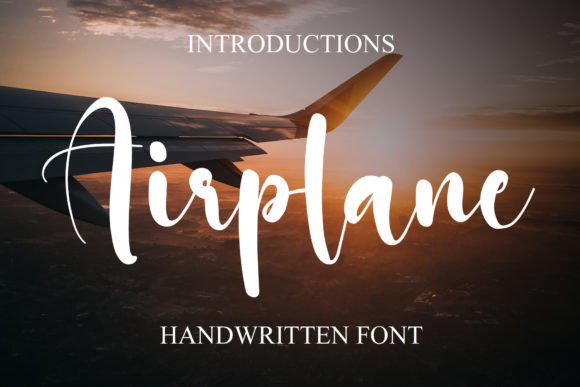
The Quest for the Perfect Font: Discovering Airplane
First Impressions: A Beautiful Script Font
Airplane is a stylish and elegant script font, perfect for projects that need a touch of sophistication. Its delicate lines and curves make it ideal for a variety of applications, including logos, branding projects, labels, photography, watermarks, and special events. The font comes with a range of features that make it easy to use and customize.
• ✨ Elegant and stylish design
• 💫 Highly versatile and adaptable to different projects
• 🔍 Extensive range of OpenType features
• ⚠️ Some users may find the font a bit too delicate for certain applications
• 🤔 Limited availability of bold or heavy weights
The Story Behind Airplane: Designer Inspiration
Airplane was designed with the goal of creating a beautiful and elegant script font that would add a touch of sophistication to any project. The designer drew inspiration from classic typography and modern calligraphy, combining delicate lines and curves with a range of OpenType features. The result is a font that’s both stylish and versatile.